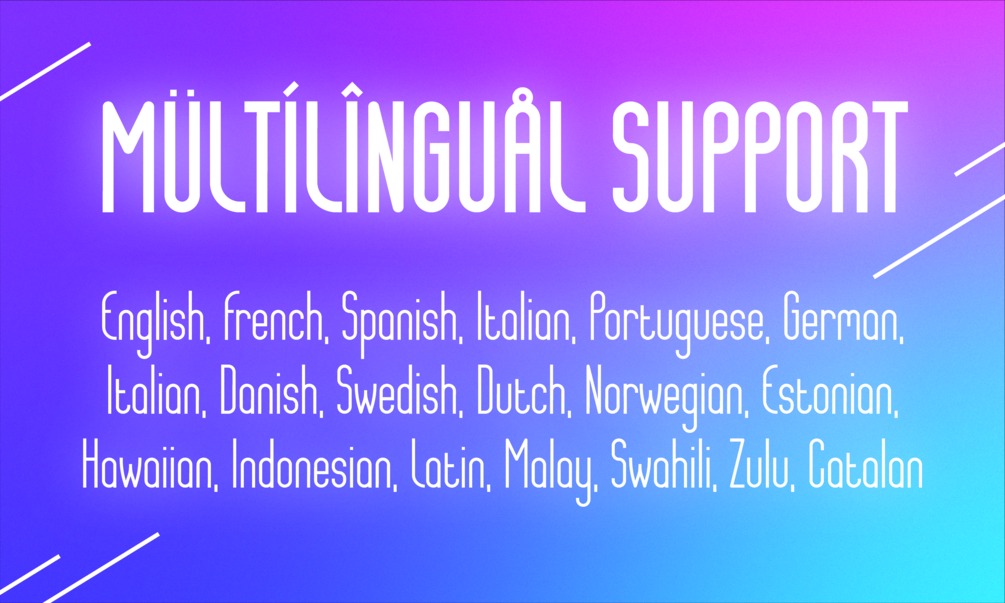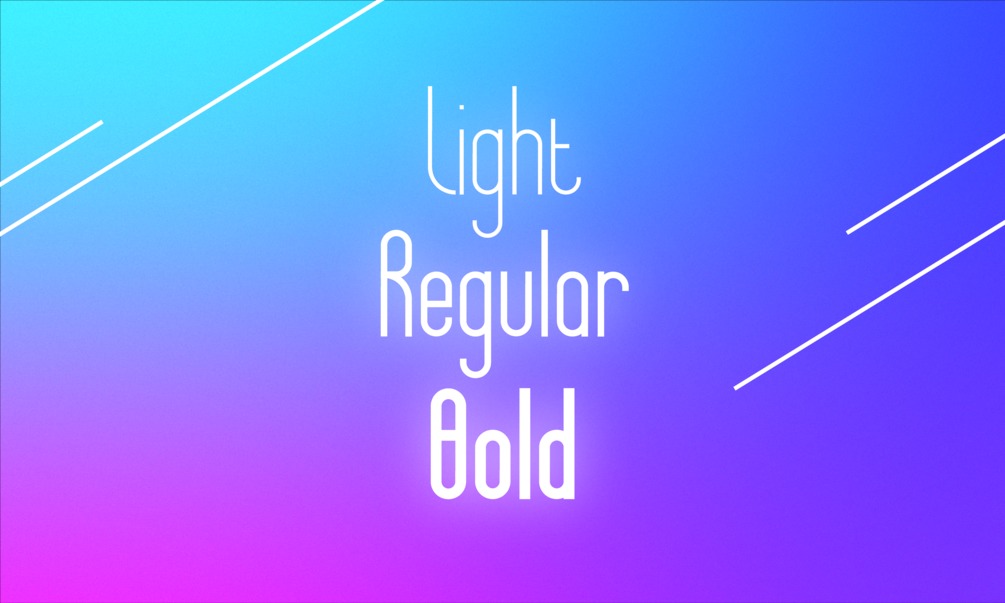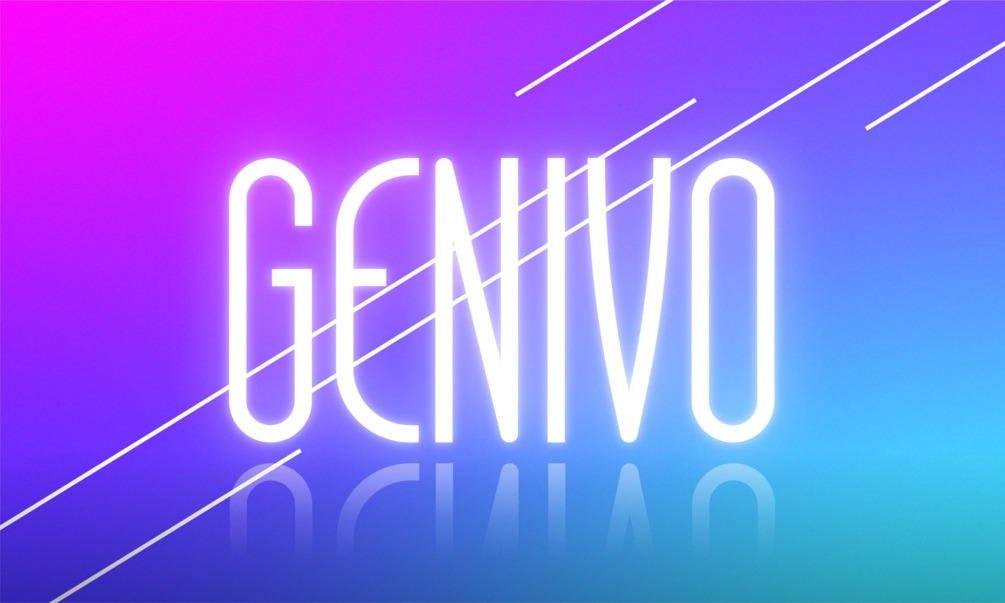
Genivo Sans Serif Font
This Font designed by Yvonne Simmermacher is a tall, sleek and modern sans serif typeface. With high legibility structure letter form. This font is good for logo design, Social media, Movie Titles, Books Titles, a short text even a long text letter and good for your secondary text font with script or signature typeface.